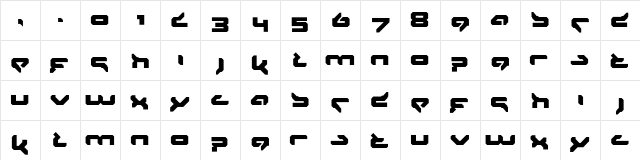
FUTUREMARK Regular
Design Context for FUTUREMARK Typeface
FUTUREMARK has a distinctly futuristic character, with geometric precision and clean angles that feel at home in technology, gaming, and sci-fi contexts.